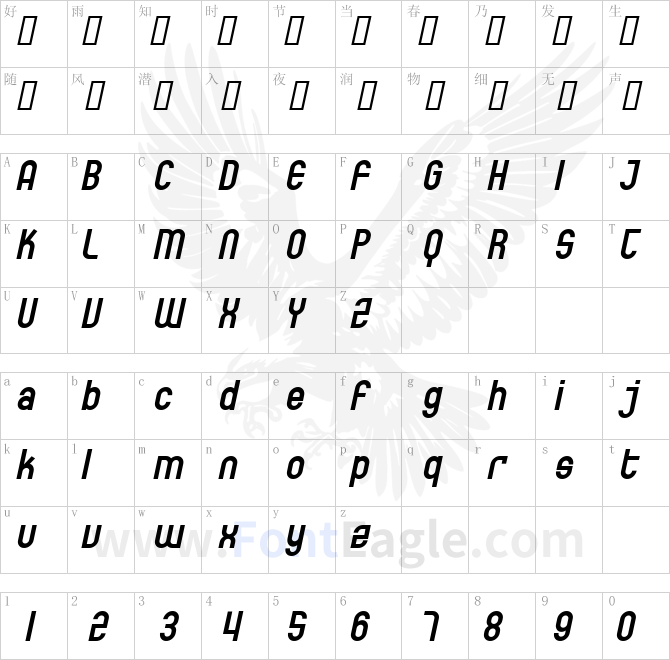
SF Eccentric Opus Bold Oblique.ttf Font Image
- Font name:SF Eccentric Opus
- Font Subfamily:Bold Oblique
- Font Subfamily ID:SF Eccentric Opus Bold Oblique
- Font Full Name:SF Eccentric Opus Bold Oblique
- Postscript:SFEccentricOpus-BoldOblique